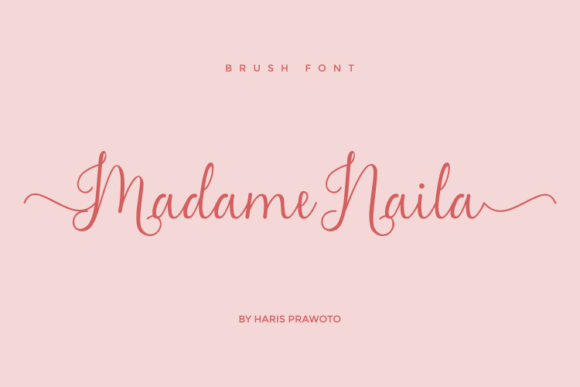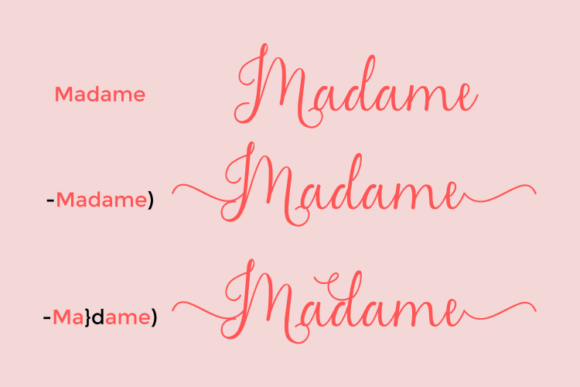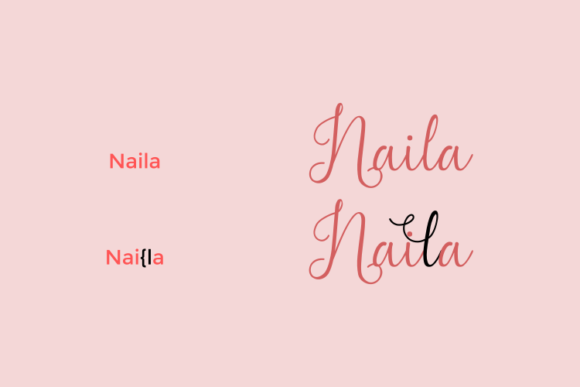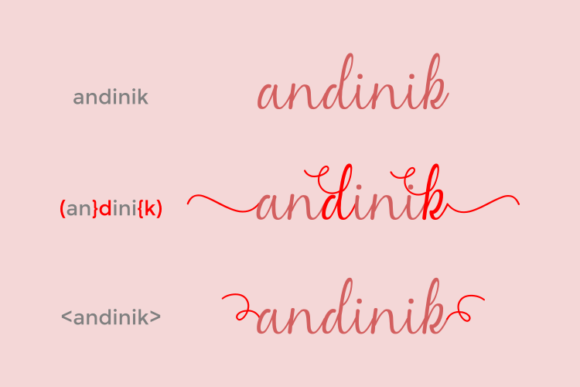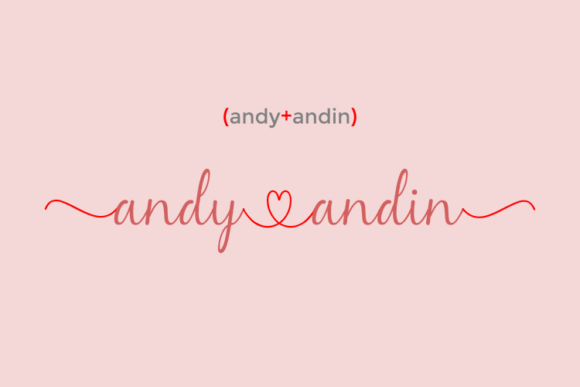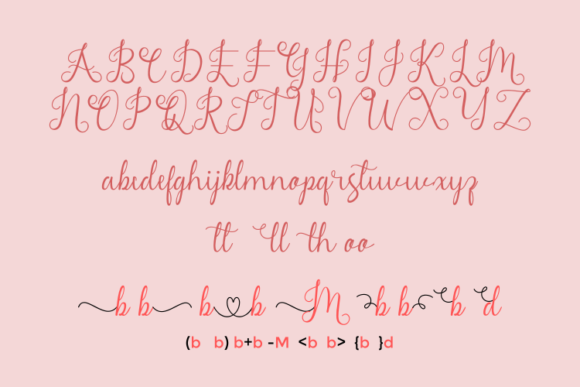
Madame Naila Font
About Madame Naila Font
Madame Naila is a flowing handwritten font, described by an elegant touch, perfect for your favorite projects. Fall in love with its incredibly distinct and timeless style and use it to create spectacular designs!